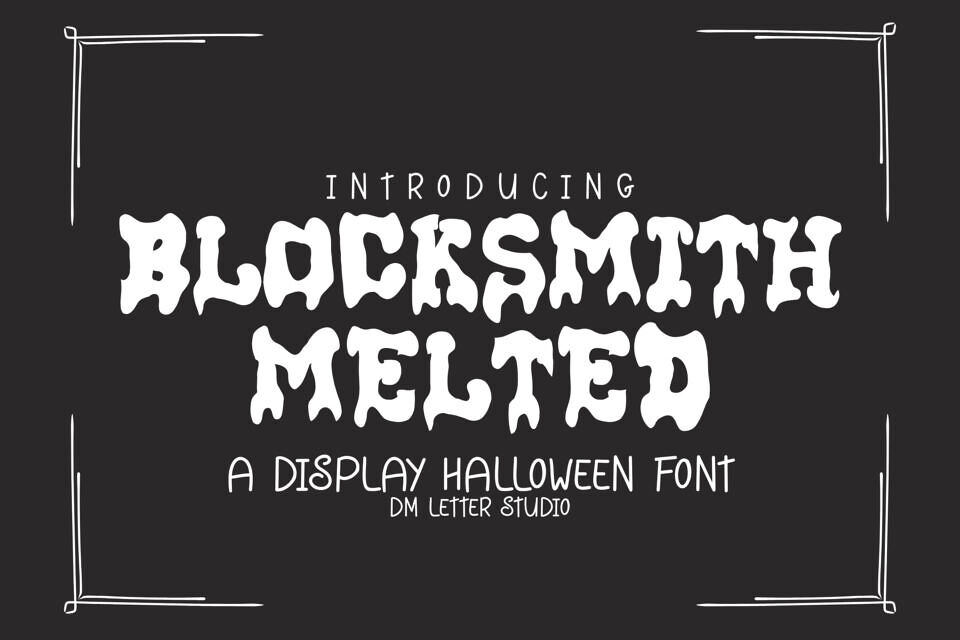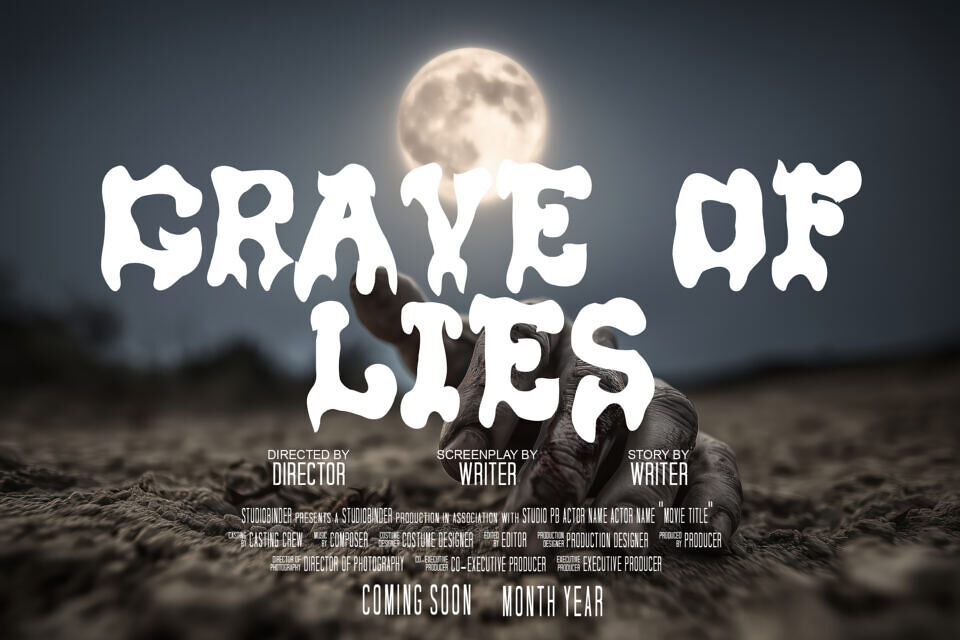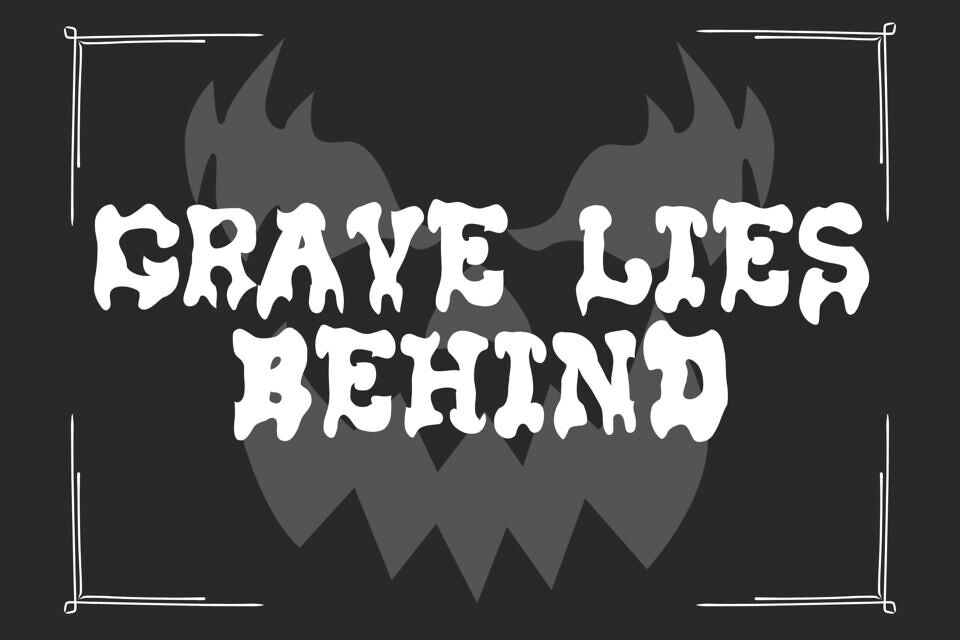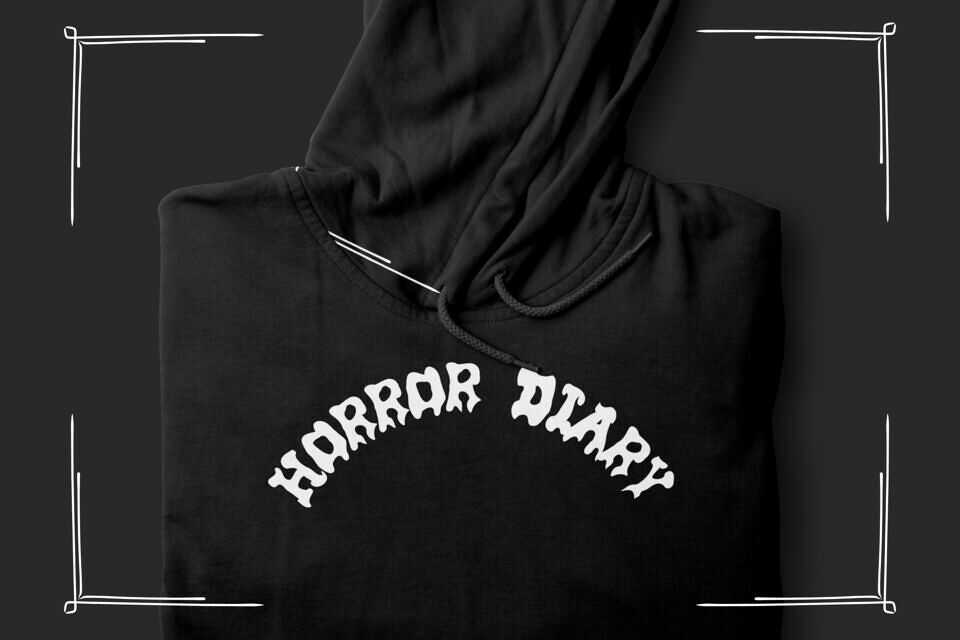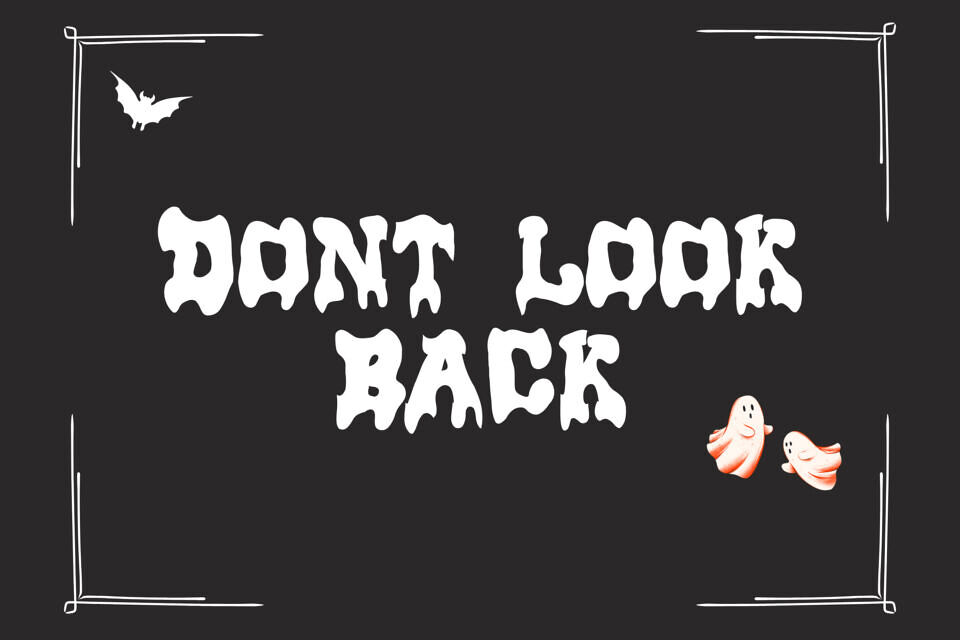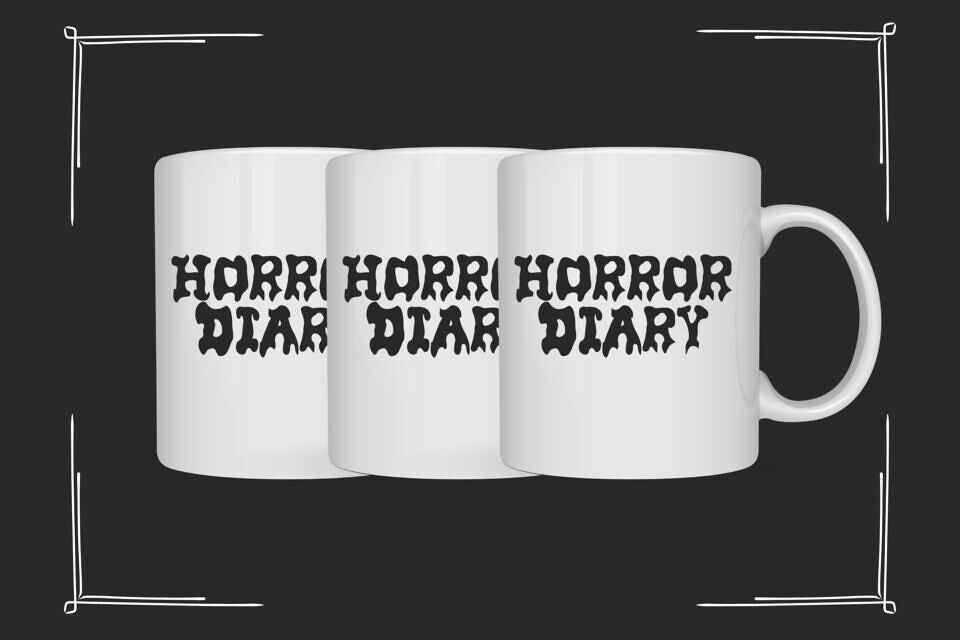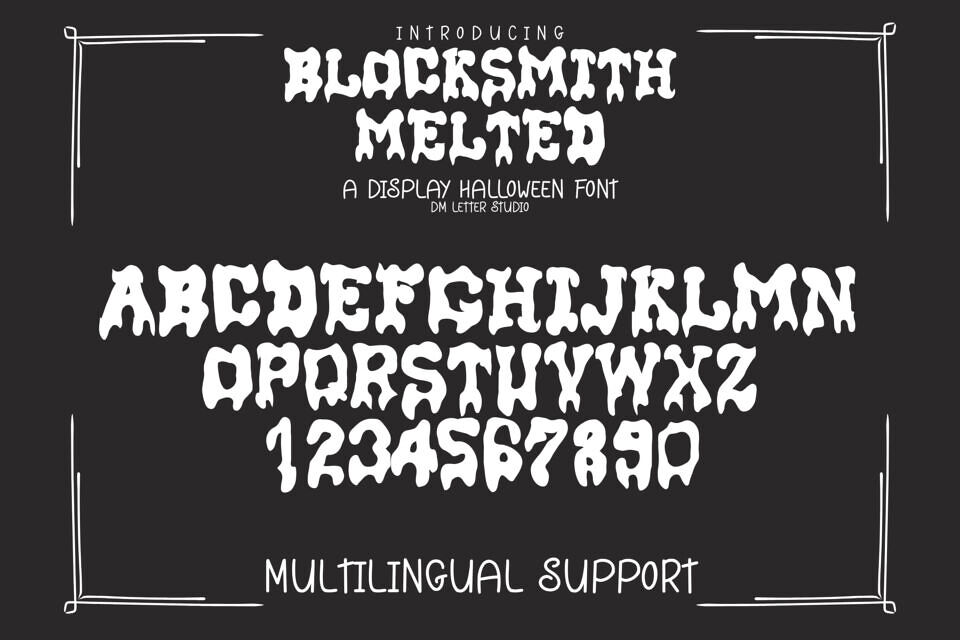
Blocksmith Melted is a bold varsity font with a wild, liquid twist. Taking the strength of classic collegiate lettering and infusing it with gooey, dripping edges, this display font is perfect for standout designs with attitude. Whether you’re creating edgy sports graphics, Halloween posters, or streetwear branding, Blocksmith Melted delivers impact with a rebellious, melting style.